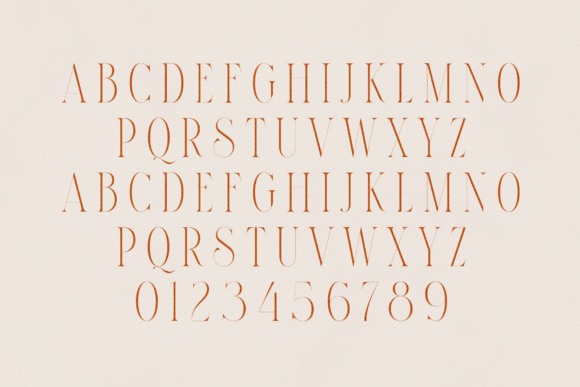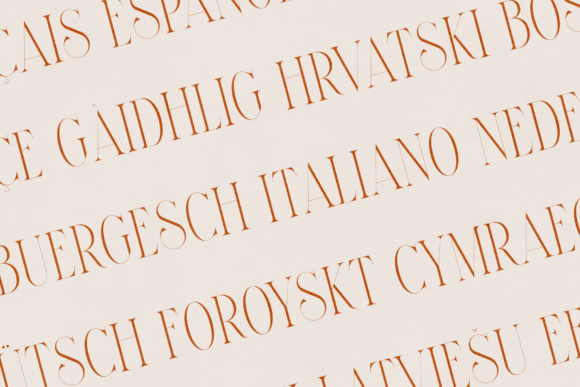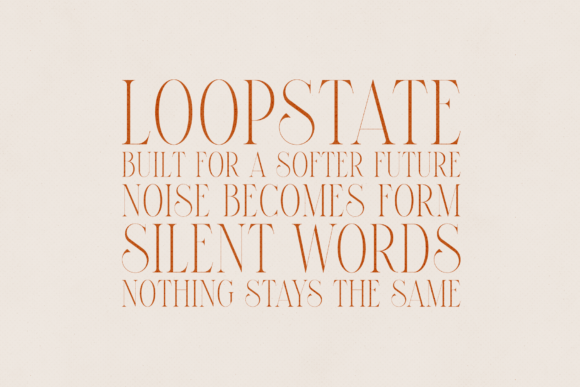
Introduction to Maturation Delicate Edition Font
Have you ever stared at a blank canvas, waiting for the perfect words to flow, and suddenly, a concept emerges that feels truly breathtaking? That’s what happens when you work with the right design tools. For creatives seeking to elevate their projects to new heights, the Maturation Delicate Edition Font is an exceptional resource that can make all the difference. This exquisite serif font is designed to evoke a sense of luxury and sophistication, perfect for high-end branding, editorial layouts, and more.
As a designer, you know the importance of having a high-quality font that can elevate your creative project from good to exceptional. The Maturation Delicate Edition Font offers a refined, timeless aesthetic that combines elegance with precision, making it an ideal choice for designers who want to achieve a high-end look without sacrificing clarity. With its delicate hairlines, sharp serifs, and bold stems, this font is a true masterpiece that can add a touch of sophistication to any design.
Key Features of Maturation Delicate Edition Font
- High-quality design resource ideal for creative projects requiring a touch of elegance.
- Unique, handcrafted design with intricate details and subtle texture, perfect for adding a delicate touch to your work.
- Designed to be versatile, suitable for use in various design applications, including logos, branding, and digital art.
Honest Review: Maturation Delicate Edition Font
As a designer, I’m always on the lookout for high-quality fonts to elevate my creative projects. Recently, I came across the Maturation Delicate Edition Font, and I’m excited to share my honest review with you.
- ✨ High-quality design: The font is meticulously crafted, with a focus on details and a clean, elegant aesthetic.
- ✨ Versatile: The Maturation Delicate Edition Font can be used for a wide range of creative projects, from wedding invitations to food packaging.
- ⚠️ Limited character set: The font may not have a comprehensive character set, which could be a limitation for designers working on projects that require specific characters or languages.
- ⚠️ Not ideal for bold text: The font’s delicate nature may not make it suitable for bold or dramatic text, where a more robust font is preferred.
Overall, I’m impressed with the Maturation Delicate Edition Font. It’s a high-quality design resource that can add a touch of elegance to any creative project. While it may have some limitations, it’s definitely worth considering for designers looking for a free, versatile font.
Maturation Delicate Edition Font
For best results, use the Maturation Delicate Edition Font on a transparent background to create a clean and elegant design. You can also combine it with other design resources like graphics and images to create a unique and eye-catching visual identity.
The Maturation Delicate Edition Font is ideal for creative projects that require a touch of sophistication and elegance. It’s perfect for wedding invitations, luxury branding, and high-end marketing materials.